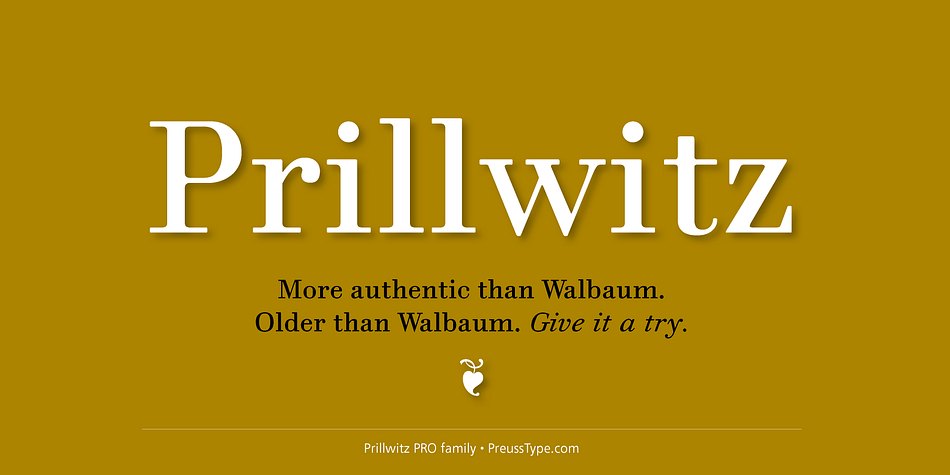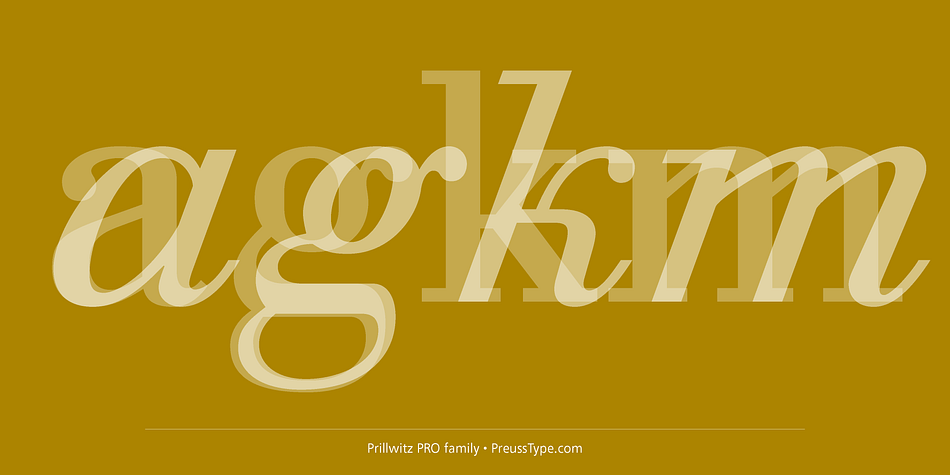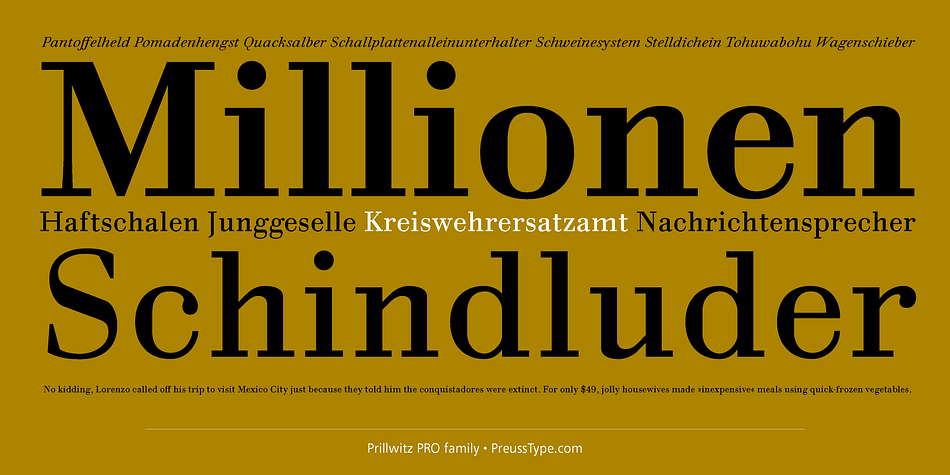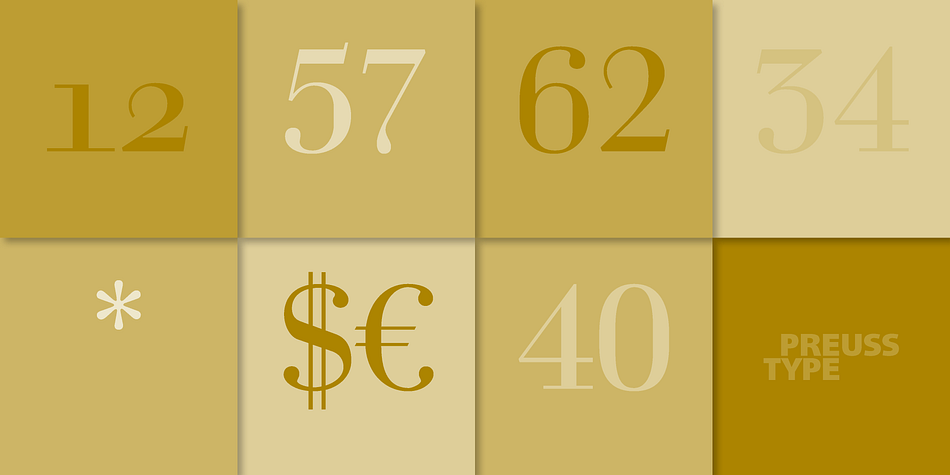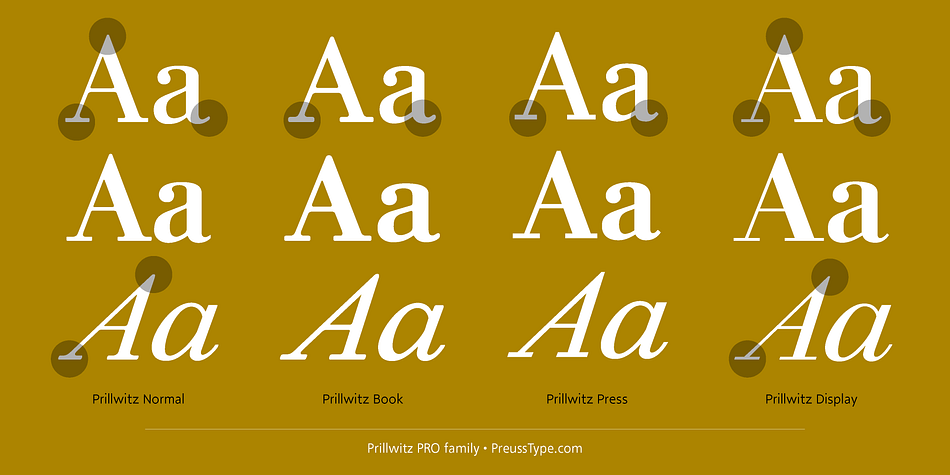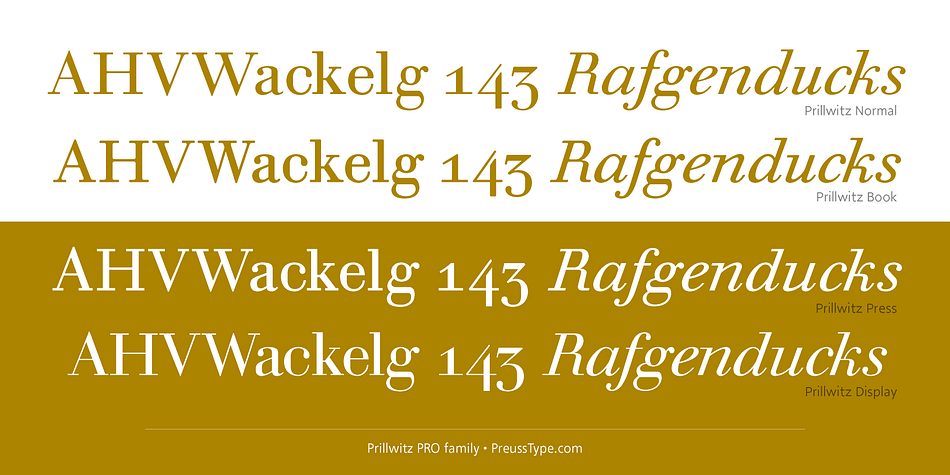
Designed by Johann Carl Ludwig Prillwitz, Prillwitz PRO is a serif and display serif font family. This typeface has twelve styles and was published by preussTYPE.
German punchcutter Johann Carl Ludwig Prillwitz was a contemporary of Didot and Bodoni, but his work has remained one of the eras best kept secrets. He cut his first faces in 1790, even earlier than that other German classicist, Walbaum.
Prillwitz is simply a gorgeous revival. It is modest in scope it offers just Regular, Italic, and Bold but its beautifully made. It also offers various optical styles, optimized for different sizes: Normal, Book, and Display. Prillwitz Press, specially created for small-size newspaper use. While many digital Didot and Bodoni revivals are too thin and vulnerable for long-form reading, this family in a similar style is great for demanding editorial work, offering versions with excellent readability for each hierarchic level of the layout.
Foundry | preussTYPE |
Designer | Johann Carl Ludwig Prillwitz |